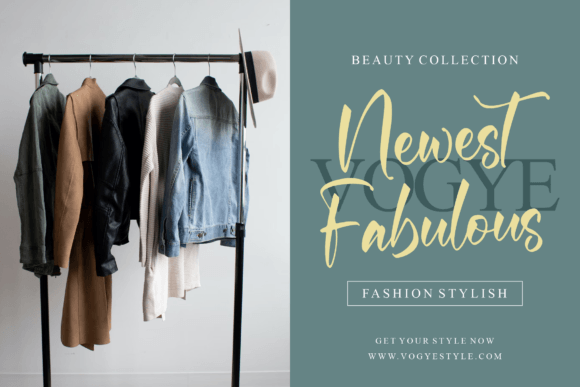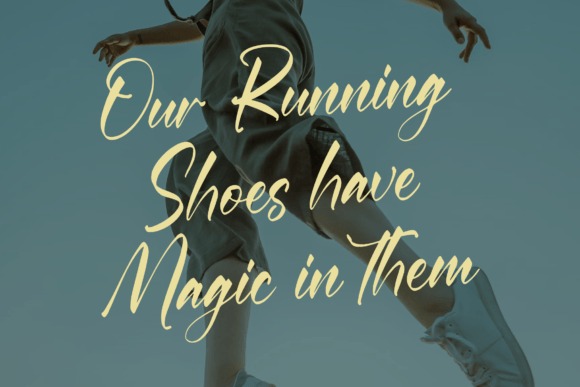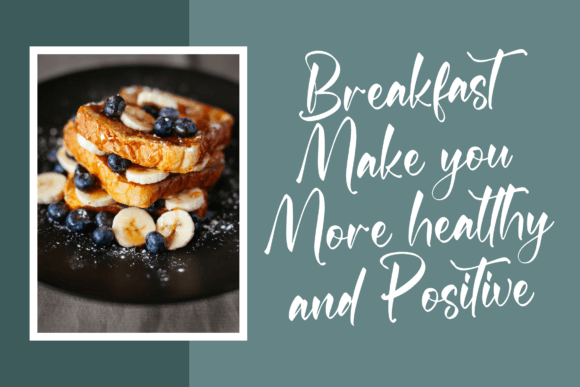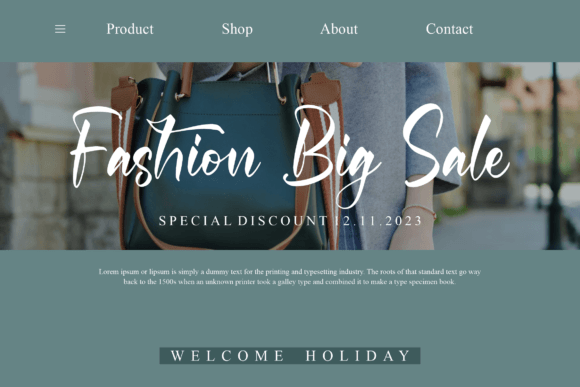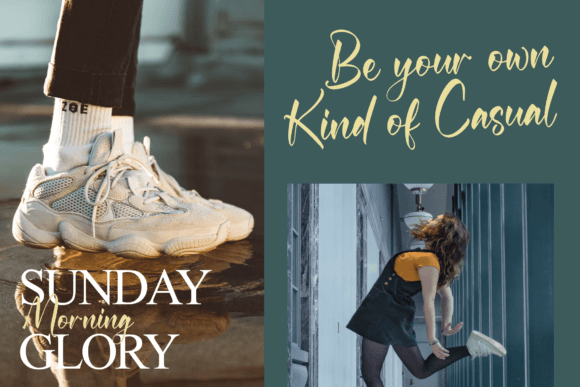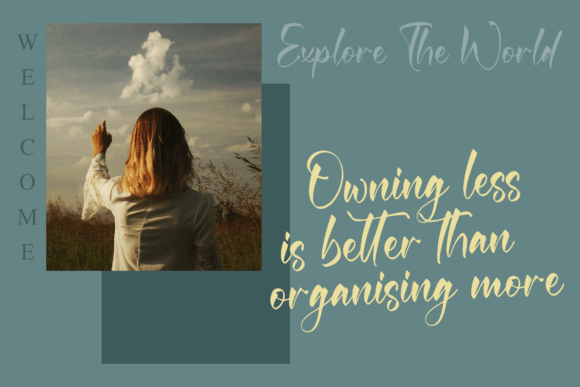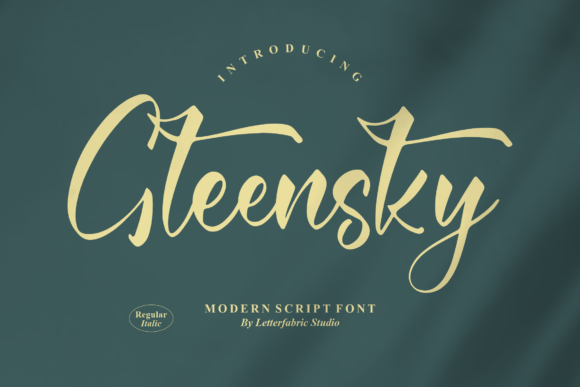
Gleensky Font: Elevate Your Designs with a Modern Script Touch
Are you on the hunt for a font that can add a touch of elegance and sophistication to your designs? Look no further than the Gleensky Font, a modern script font that is perfect for a wide range of projects. From logos and branding to homeware designs, product packaging, and more, Gleensky is the perfect choice for designers and crafters looking to add a beautiful script taste to their work.
What Makes Gleensky Font So Special?
Gleensky Font is a versatile and stylish font that is suitable for any project that requires a modern script touch. Its elegant and flowing lines make it perfect for designs that need a touch of sophistication and glamour. Whether you’re working on a logo, branding project, or product packaging, Gleensky is sure to impress.
One of the standout features of Gleensky Font is its PUA encoding. This means that you can access all of the glyphs and swashes with ease, giving you complete creative control over your designs. With Gleensky, you can add flourishes and swashes to your text with just a few clicks, making it easy to create beautiful and unique designs.
Gleensky Font is perfect for designers and crafters who want to add a touch of elegance and sophistication to their work. Whether you’re working on a commercial project or a personal craft project, Gleensky is sure to impress. Its modern script style makes it perfect for a wide range of projects, including:
- Logos and branding projects
- Homeware designs
- Product packaging
- Mugs and ceramics
- Quotes and posters
- Shopping bags and t-shirts
- Book covers and name cards
- Invitation cards and greeting cards
- Labels and photography
- Watermarks and special events
Why Choose Gleensky Font?
There are many reasons why Gleensky Font is the perfect choice for designers and crafters. Here are just a few:
- Unique and stylish design: Gleensky Font has a unique and stylish design that is sure to impress. Its modern script style makes it perfect for designs that need a touch of elegance and sophistication.
- PUA encoded: Gleensky Font is PUA encoded, making it easy to access all of the glyphs and swashes. This gives you complete creative control over your designs.
- Versatile: Gleensky Font is perfect for a wide range of projects, from logos and branding to homeware designs and product packaging.
Tips for Using Gleensky Font
Here are a few tips for using Gleensky Font in your designs:
- Experiment with different sizes and styles: Gleensky Font looks great in a variety of sizes and styles. Experiment with different sizes and styles to find the one that works best for your design.
- Use swashes and glyphs: Gleensky Font comes with a range of swashes and glyphs that you can use to add flourishes to your text. Experiment with different swashes and glyphs to add a touch of elegance and sophistication to your designs.
- Pair with other fonts: Gleensky Font pairs well with a range of other fonts. Experiment with different font combinations to find the one that works best for your design.